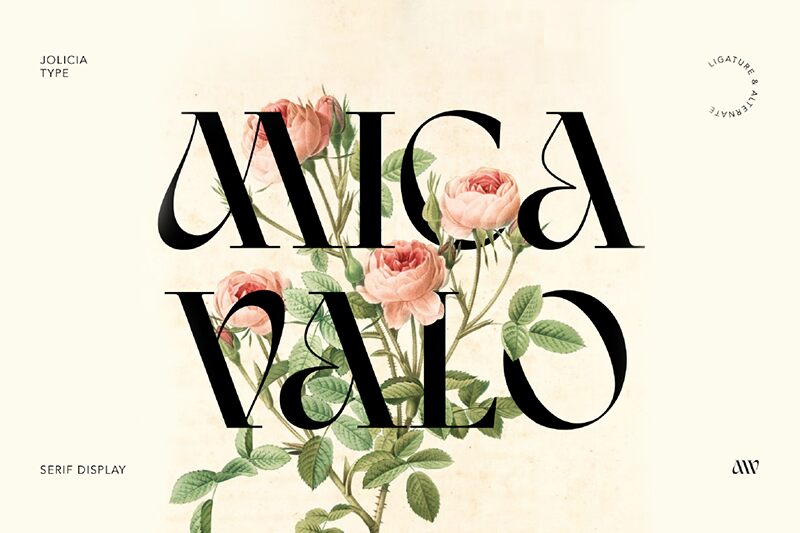
MicaValo
Mica Valo font is a sophisticated serif by Jolicia Type Foundry that exudes timeless elegance and refinement. Its graceful curves and meticulous detailing make it the perfect choice for projects that demand a touch of class. This free serif font manages to combine modernity with classicism and creativity with simplicity while focusing on legibility.
Mica Valo by Jolicia Type